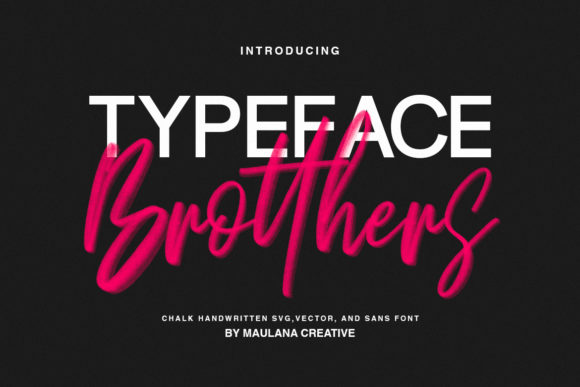
Brotthers Font
Introducing Brotthers, the display font family that's both captivating and utterly unique. This handwritten wonder is crafted by Maulana Creative, a name synonymous with typographic excellence. Brotthers oozes authenticity and breathes life into every design concept, transforming them into captivating masterpieces.
With its extraordinary character, Brotthers empowers you to create designs that stand out from the crowd. Imagine your website's headlines dancing with an unmatched flair, your social media posts radiating an enchanting aura, and your branding materials exuding a sophisticated charm that speaks. The possibilities are limitless, and the impact is undeniable.
Brotthers' versatility is a testament to its exceptional design. Whether you're weaving words into a stunning logo or crafting a captivating flyer, this font family seamlessly adapts, adding a touch of elegance to every endeavor. Its readability ensures that your message is delivered with clarity, captivating your audience from the very first glance.
Beyond its practical applications, Brotthers possesses an emotional depth that resonates with users. Each letterform is imbued with a sense of artistry and passion, evoking a connection that transcends the ordinary. By choosing Brotthers, you're not merely selecting a font; you're embracing a creative force that will ignite your imagination and empower you to create designs that are both mesmerizing and unforgettable.
The Brotthers display font family is a treasure trove for designers seeking to make a lasting impression. Its distinct character, unmatched versatility, and emotional resonance make it the perfect choice for a wide range of projects. Experience the transformative power of Brotthers and elevate your designs to new heights of brilliance.